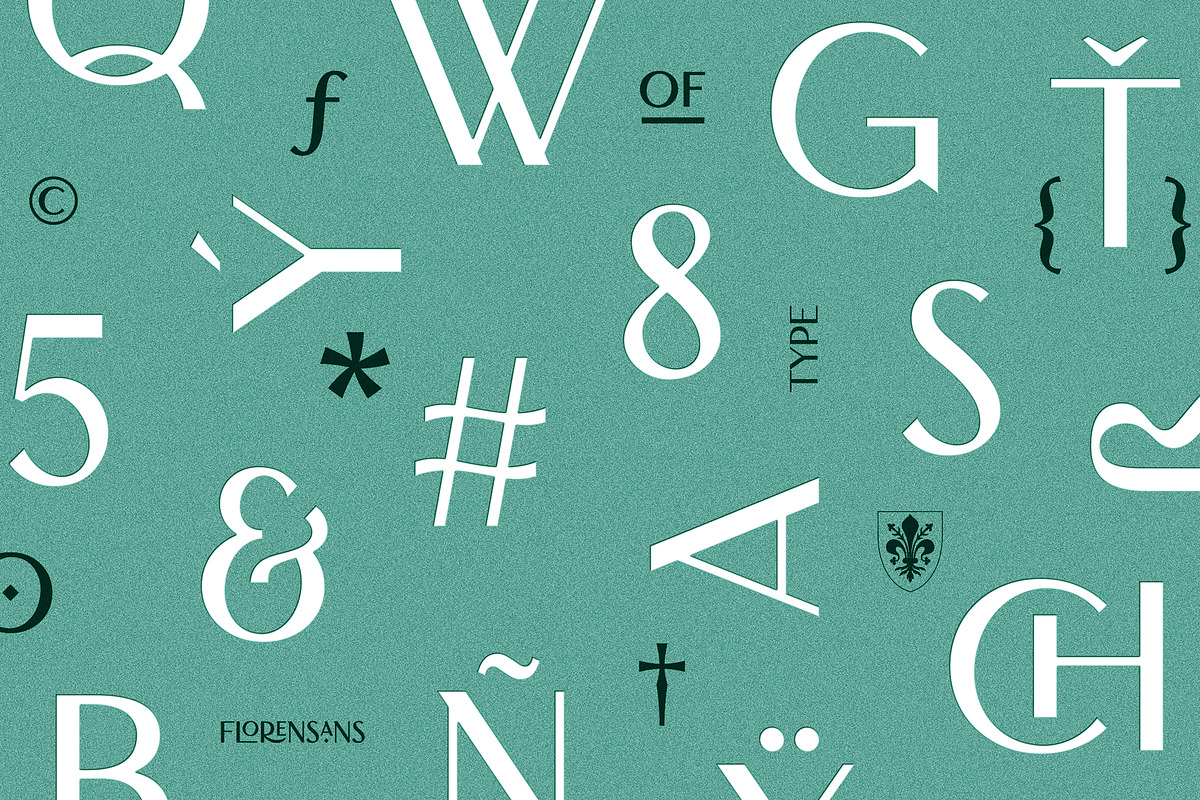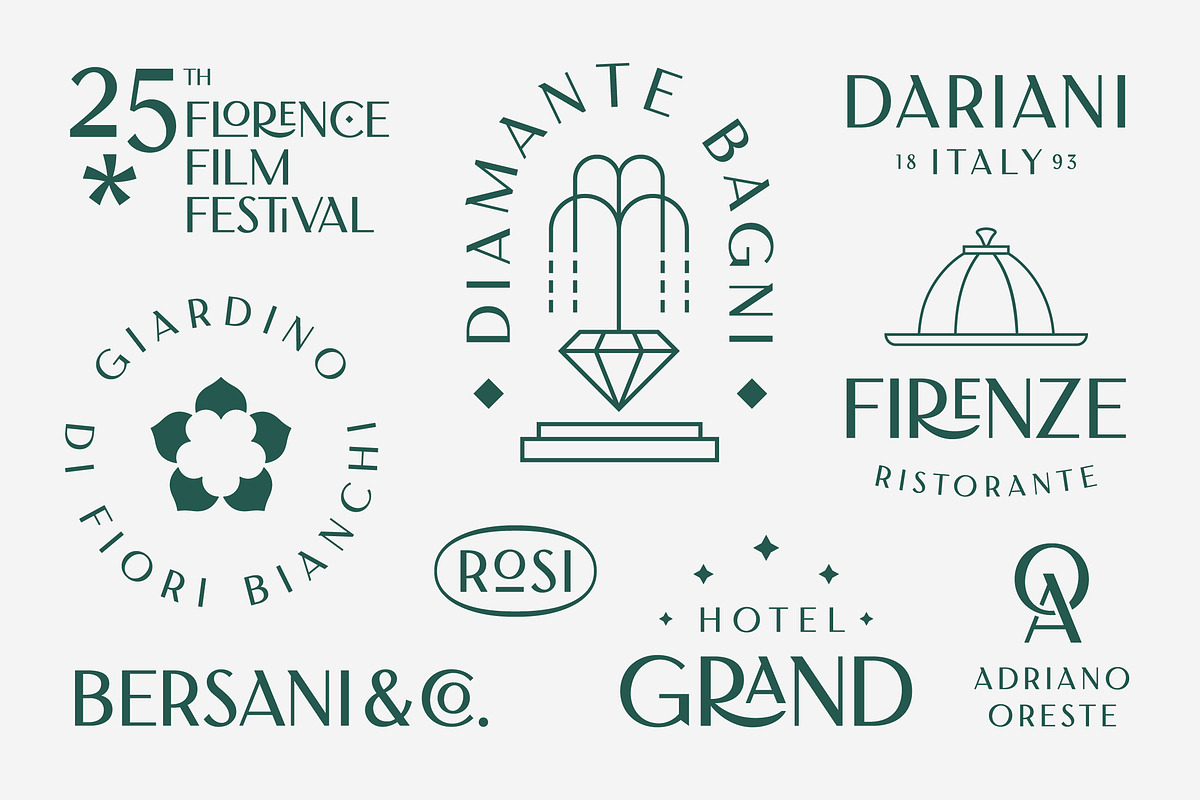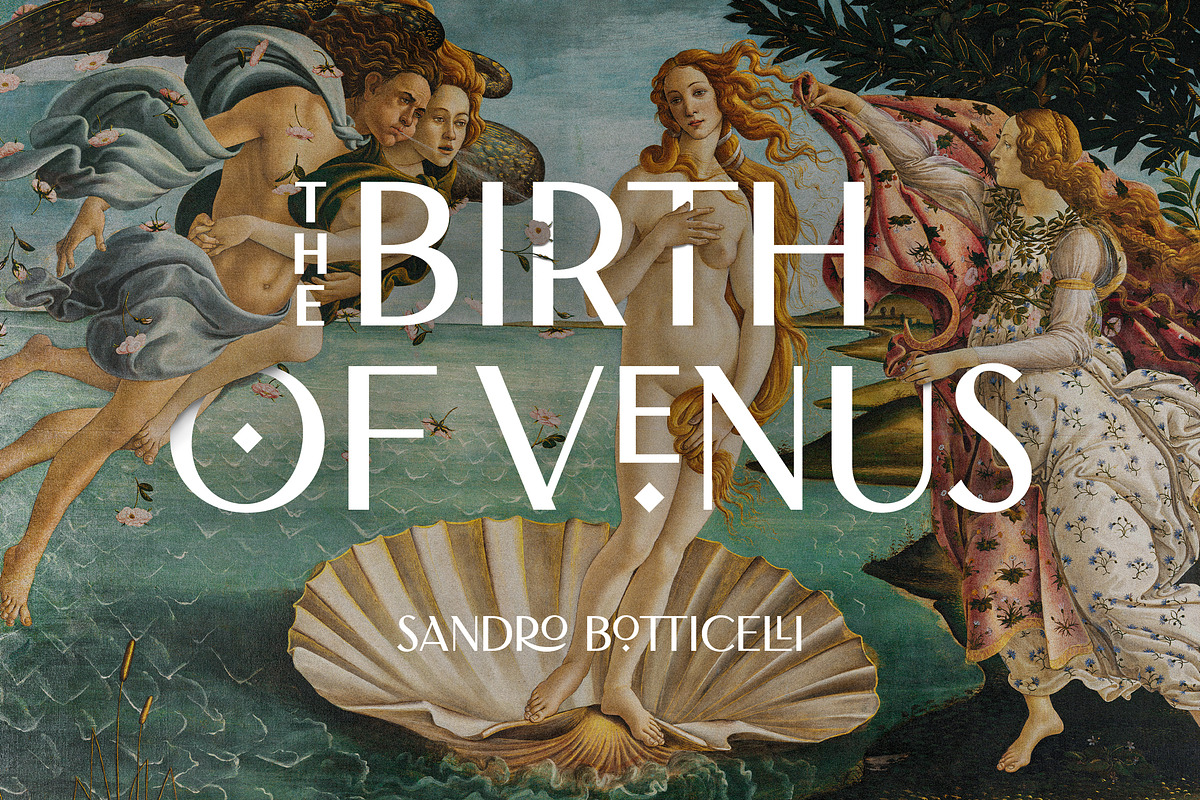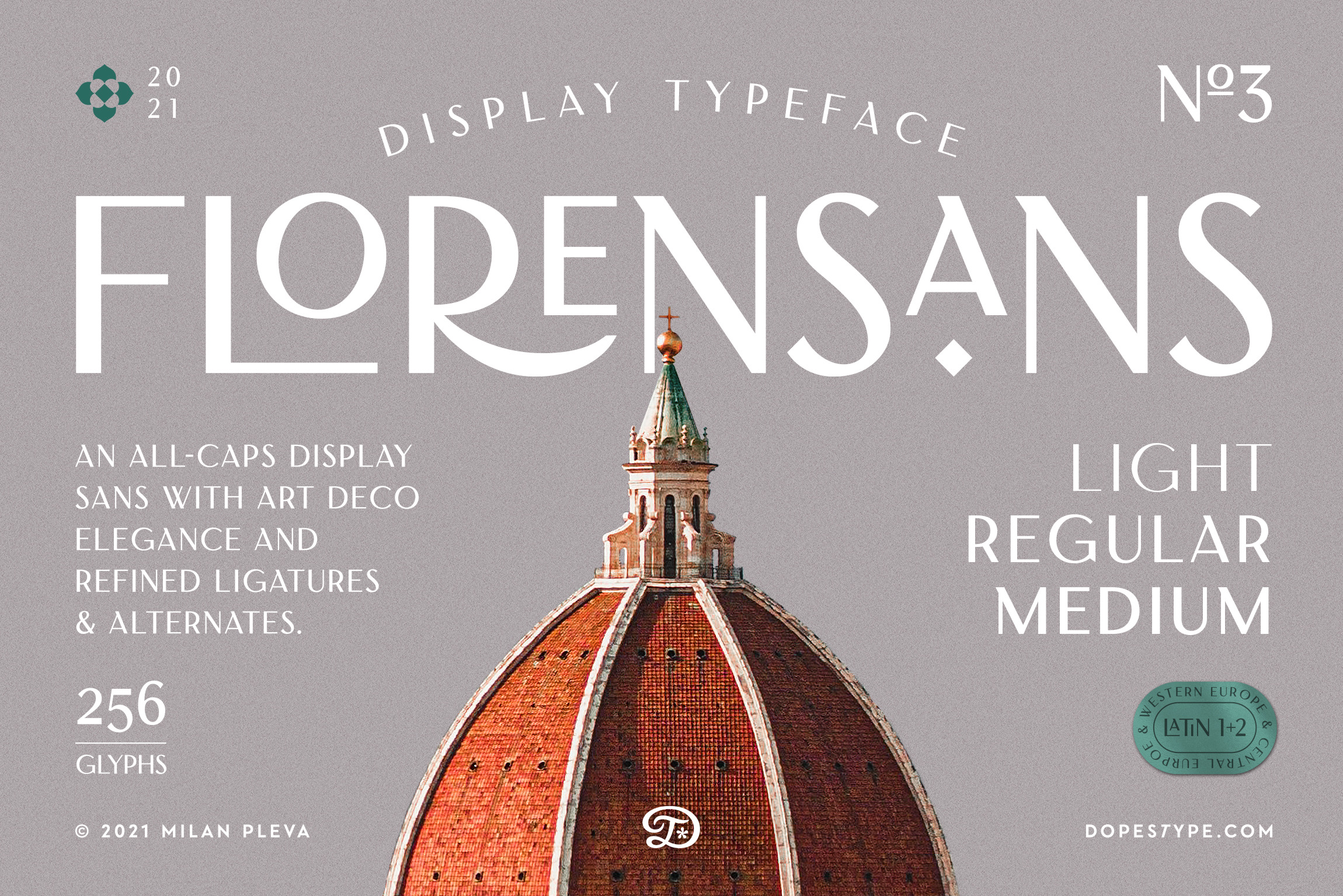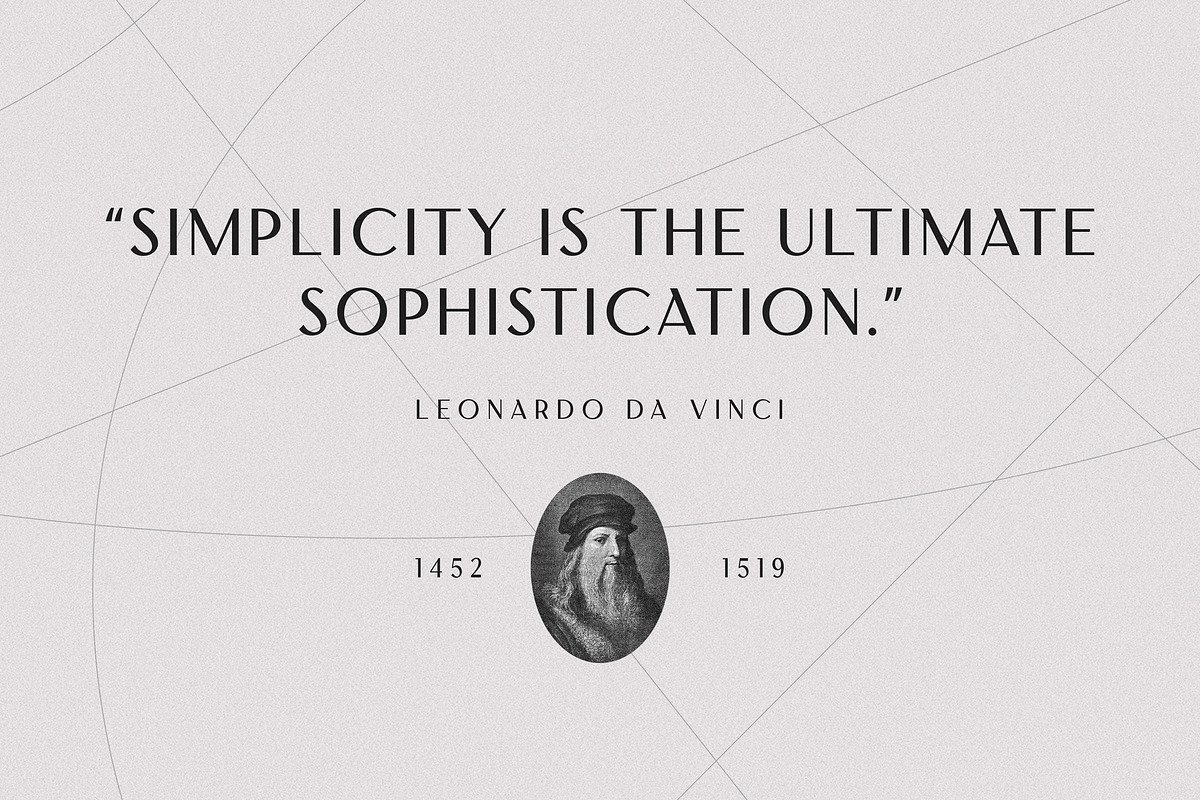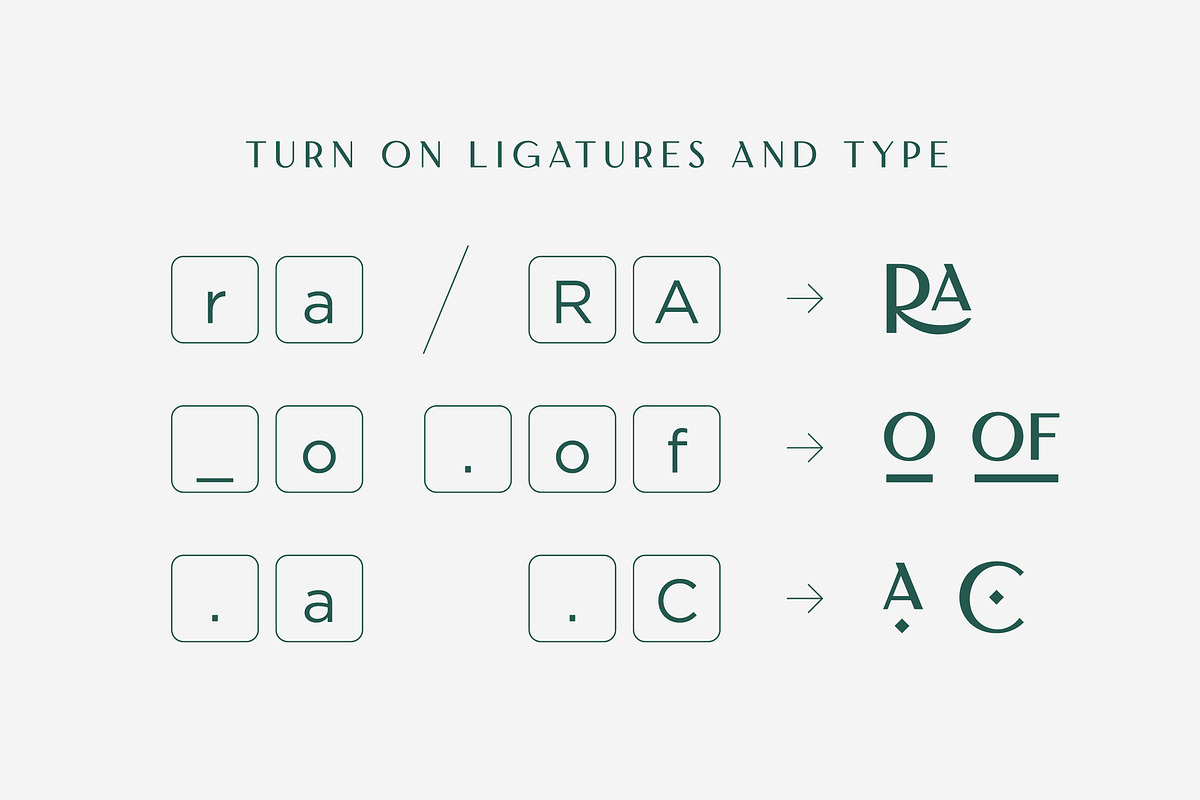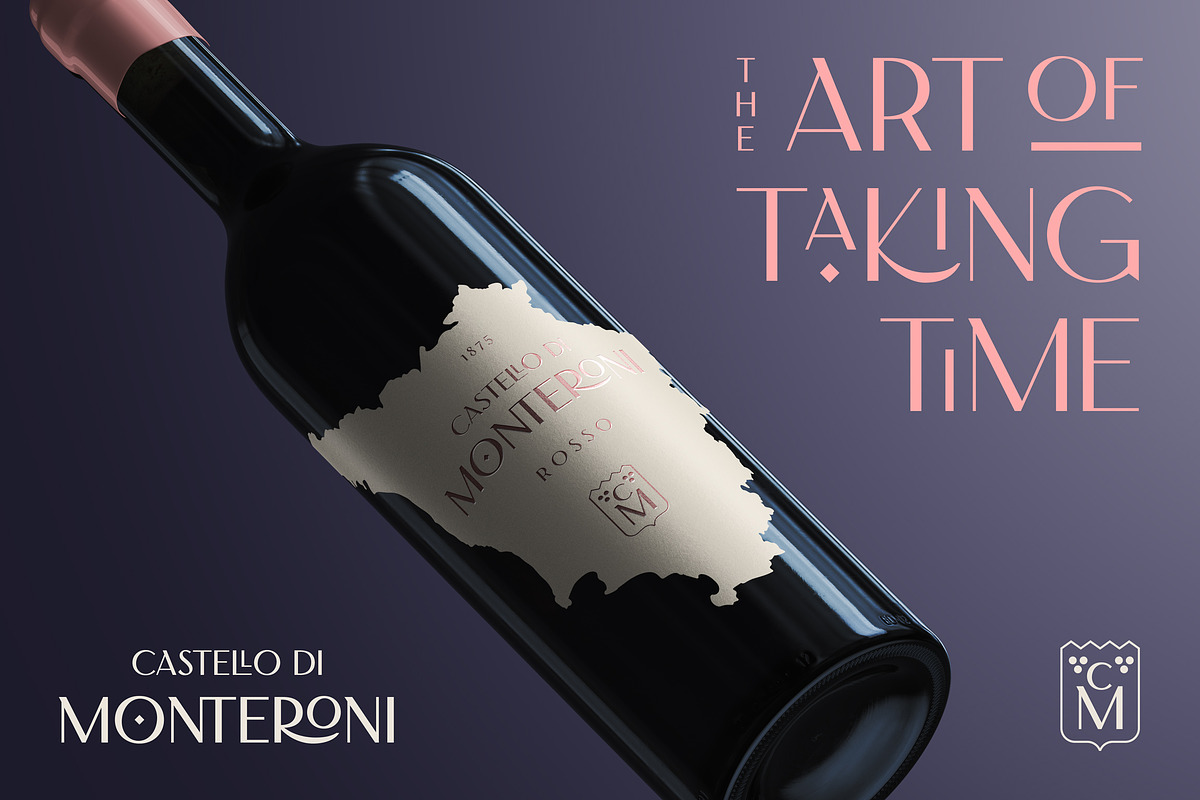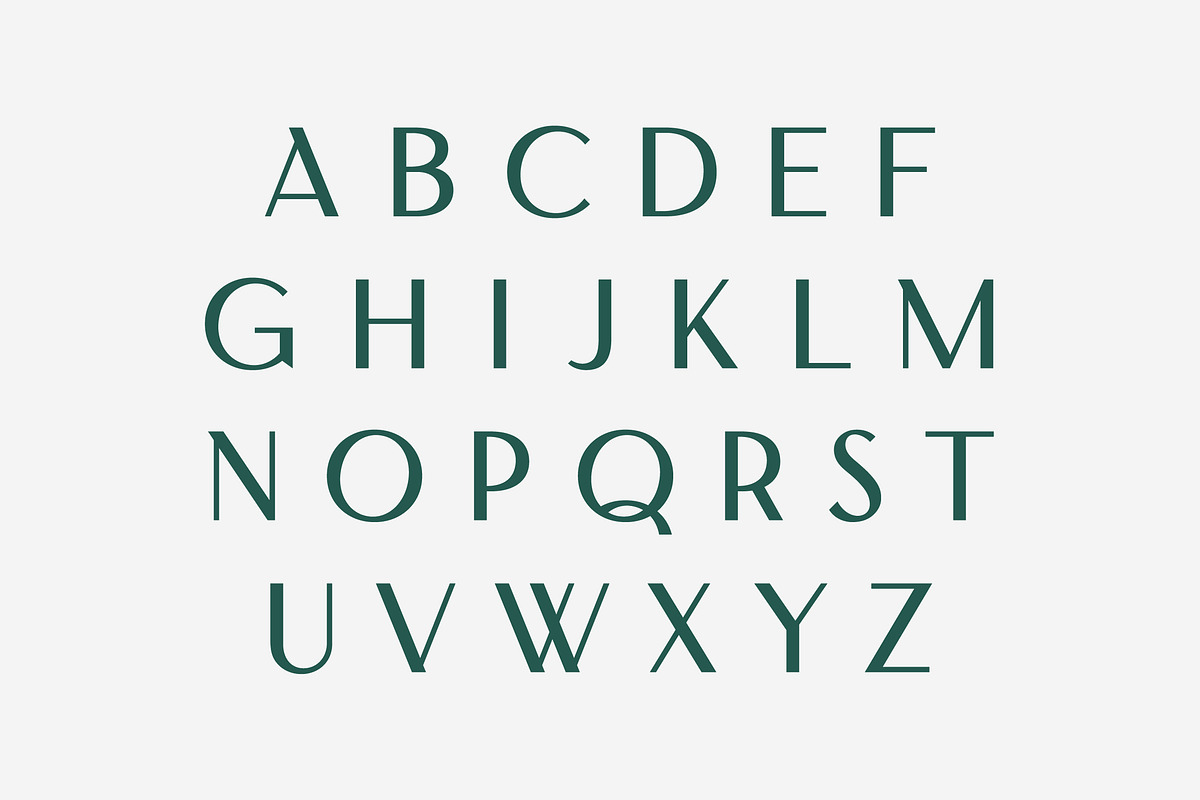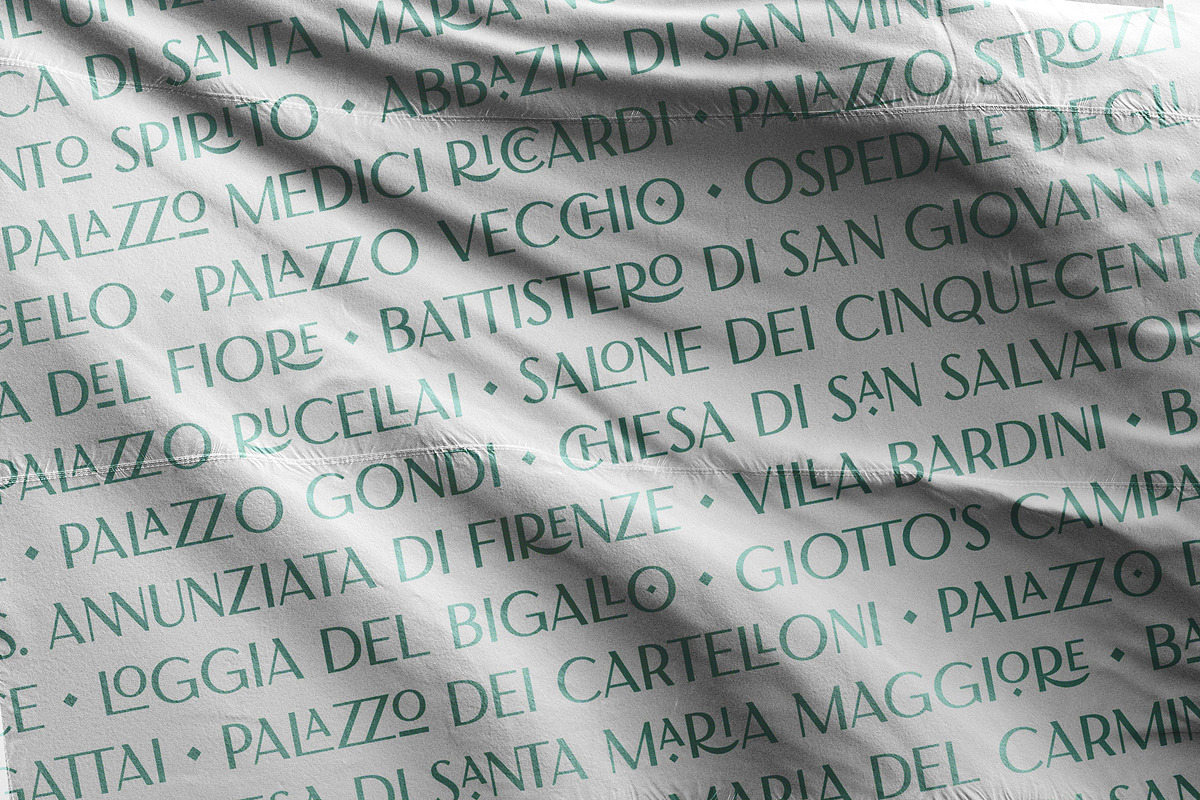
Florensans is an all caps display sans serif typeface in elegant & modern style with ligatures, special alternative glyphs and old style figures. The Florensans family contains three weights: Light, Regular and Medium. Florensans is ideal for headlines, headers, logos, labels, packaging, postcards, presentations, magazines, invitations, etc.
3 Weights - Light, Regular and Medium
Basic latin alphabet A-Z
64 Ligatures & Alternates
56 Accented characters
Numbers, Punctuation, Currency, Symbols, Math symbols & Diacritics
Old style figures